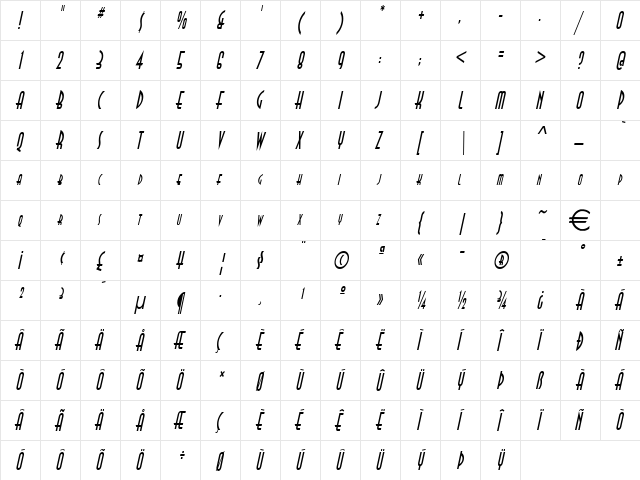
AsiaThin Italic Font Preview
Design Context for AsiaThin Typeface
AsiaThin takes a measured approach to typography — its balanced proportions and neutral character make it a reliable workhorse for both digital and print work. The dynamic lean of this cut emphasises speed and emphasis in any layout. Its slender proportions lend an understated elegance to any composition.
Pro Tip: Try AsiaThin for annotation and caption copy alongside an upright companion — the contrast in angle creates a dynamic but ordered typographic system.